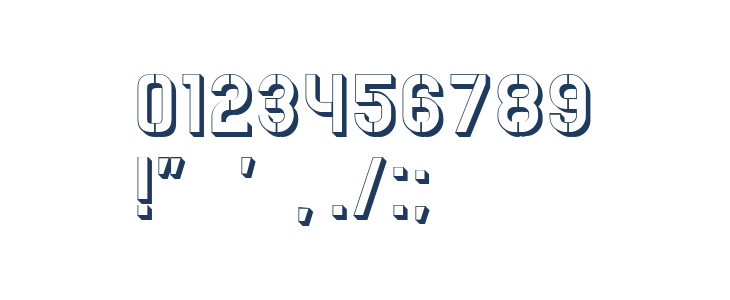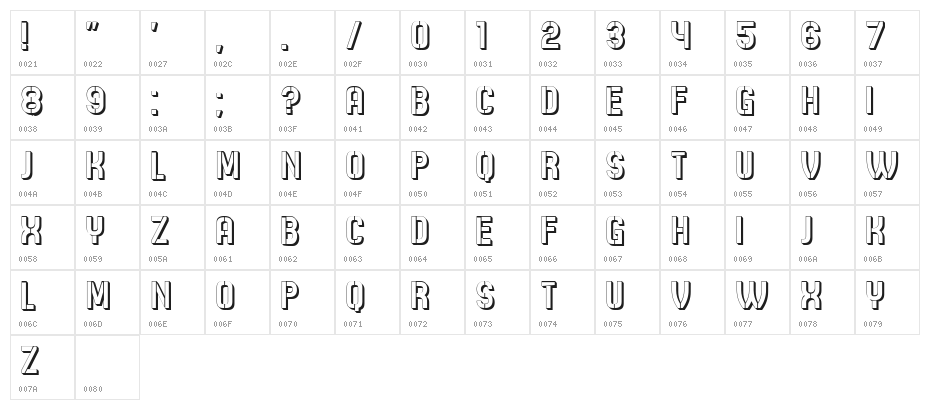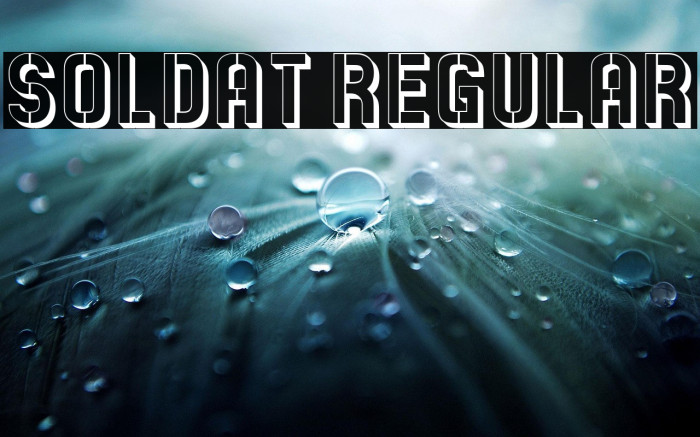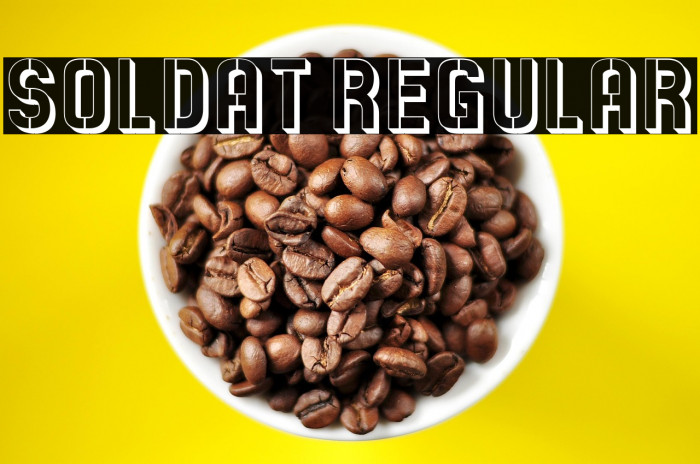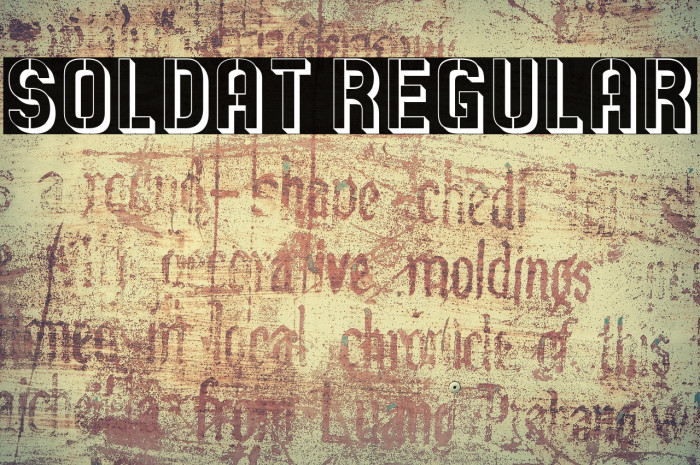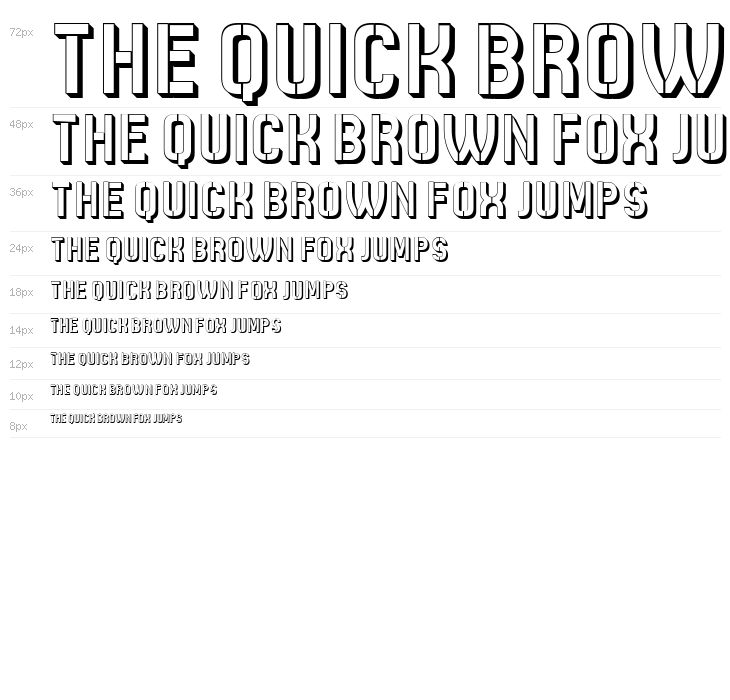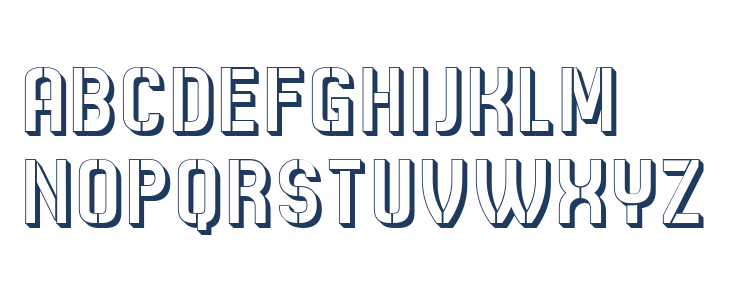
Soldat Regular Font
Soldat Regular Description
This font features a bold, three-dimensional design with a strong, geometric structure. Each character is outlined with a shadow effect, giving it a striking, embossed appearance. The uppercase letters are uniform in height and width, creating a cohesive and balanced look. The numbers and special characters maintain the same bold style, ensuring consistency across all elements. The font's design is both modern and industrial, making it suitable for projects that require a strong visual impact.
| Overall Style | Modern, Industrial |
| Proposed Projects | Ideal for posters, logos, headlines, and branding materials that require a bold and impactful visual presence. |